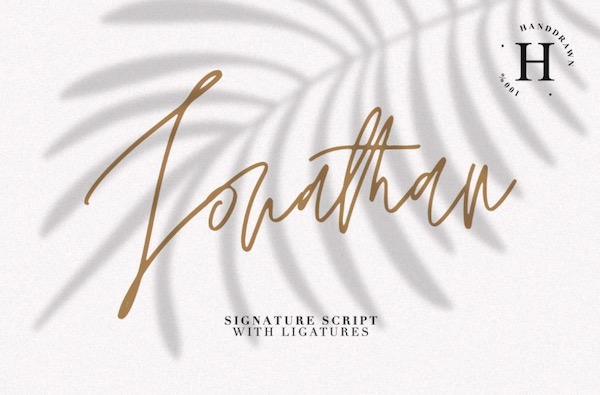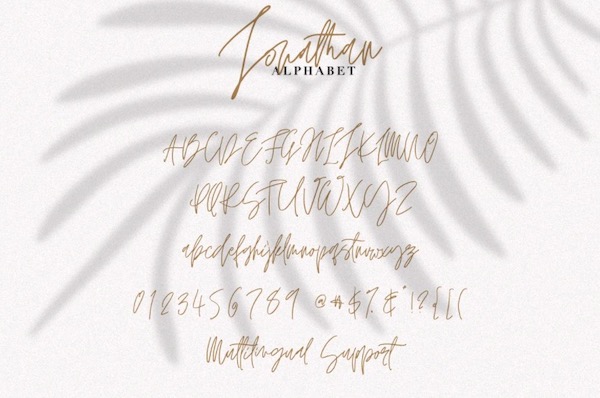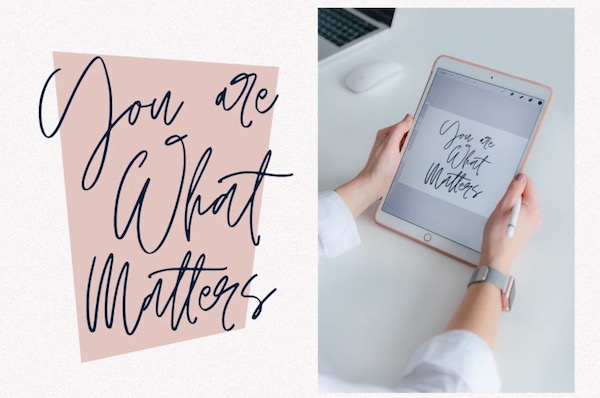
Jonathan Font is a handwritten typeface that is written with a light brush pen. It has the stroke of hand quickly combined with a natural rough dry brushstroke. It was created and shared by Dima Evans, with a natural signature font style, this script font is perfect for book covers, weddings, photography, poster, ad banner, advertising, greeting cards, handwritten quotes, branding, signature, fashion, title, social media, packaging, and much more.
Jonathan Signature Handwritten Font
Font family: Jonathan Font
Designer Name: Dima Evans